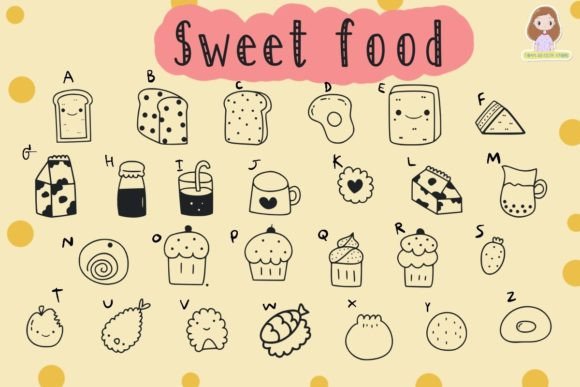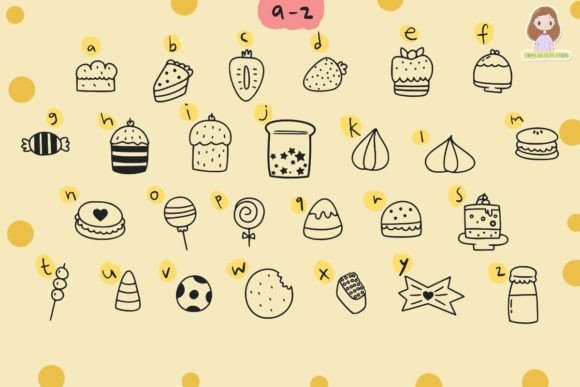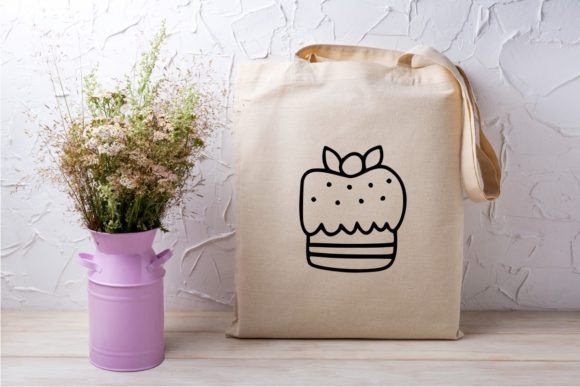
Sweet Food Font
About Sweet Food Font
Introducing “Sweet Food,” a delightful and versatile dingbats font that celebrates all things sweet and delicious. This hand-drawn font is filled with charming food-themed symbols that can be used to enhance a variety of creative projects.
With “Sweet Food,” you can add a touch of cuteness and playfulness to your designs. The collection of hand-drawn dingbats includes a wide range of sweet treats such as cupcakes, ice cream cones, cookies, donuts, candies, and more. These adorable symbols can be used to decorate designs, create patterns, embellish plans, or add whimsy to your crafting projects.
Whether you’re working on digital designs, presentations, greeting cards, or any other creative endeavor, “Sweet Food” is a delightful addition to your toolkit. The versatility of this dingbats font allows you to incorporate these charming symbols into a wide range of projects.
So, let your creativity run wild with “Sweet Food.” Add these charming hand-drawn dingbats to your creative ideas, and watch your designs come to life with a touch of sweetness. Whether you’re designing invitations, creating scrapbooks, or adding a whimsical touch to your digital graphics, “Sweet Food” will make your designs stand out and bring joy to your audience.
Indulge in the sweetness of “Sweet Food” and let these cute and useful dingbats transform your designs into delectable creations.